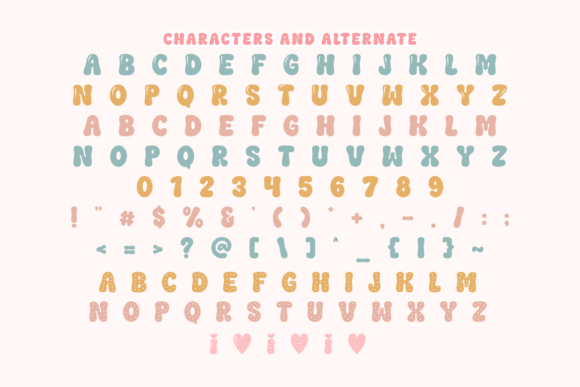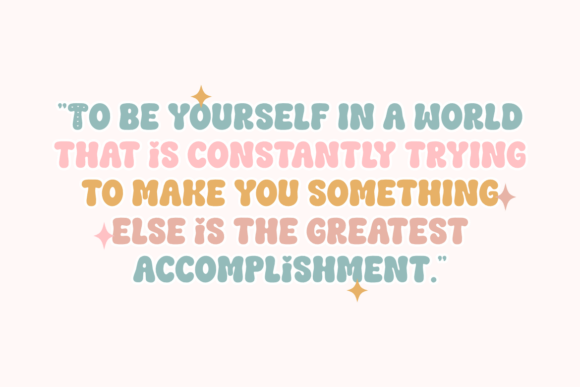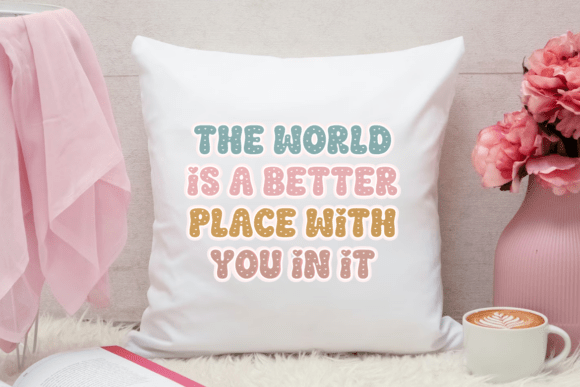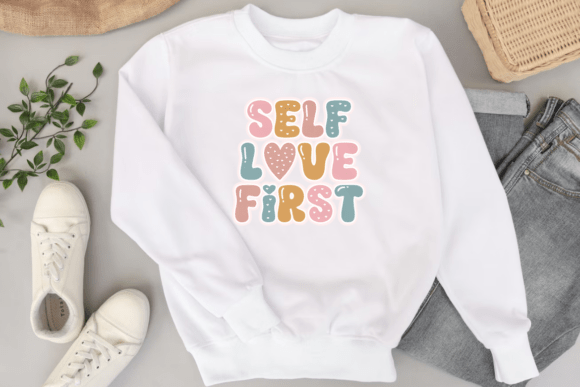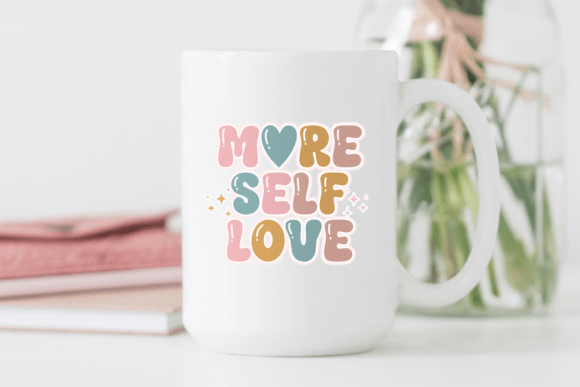
Cupid Vibes Font: The Ultimate Guide to Adding Playfulness to Your Designs
Are you looking for a font that can add a touch of playfulness and charm to your designs? Look no further than Cupid Vibes, a delightful bubble display font that is perfect for creating eye-catching headlines, posters, social media graphics, and branding. In this article, we’ll dive into the world of Cupid Vibes and explore its features, benefits, and uses.
What is Cupid Vibes Font?
Cupid Vibes is a charming and cute bubble display font that exudes playfulness. Its soft curves and bold appearance make it perfect for creating designs that require a touch of whimsy and fun. This font is designed to bring your ideas to life, and its versatility makes it suitable for a wide range of design projects.
Key Features of Cupid Vibes Font
- Soft Curves: Cupid Vibes features soft curves that give it a friendly and approachable feel.
- Bold Appearance: The font has a bold appearance that makes it perfect for creating eye-catching headlines and titles.
- Playful: Cupid Vibes exudes playfulness, making it perfect for designs that require a touch of fun and whimsy.
- Versatile: This font is versatile and can be used for a wide range of design projects, from posters and social media graphics to branding and packaging.
Benefits of Using Cupid Vibes Font
There are many benefits to using Cupid Vibes in your designs. Here are a few:
- Adds a Touch of Whimsy: Cupid Vibes adds a touch of whimsy and fun to your designs, making them more engaging and eye-catching.
- Perfect for Branding: The font’s playful and charming appearance makes it perfect for branding projects that require a friendly and approachable feel.
- Increases Readability: Cupid Vibes is a bold and clear font that increases readability, making it perfect for headlines and titles.
Uses of Cupid Vibes Font
Cupid Vibes is a versatile font that can be used for a wide range of design projects. Here are a few ideas:
- Posters: Use Cupid Vibes to create eye-catching posters for events, promotions, and products.
- Social Media Graphics: The font is perfect for creating social media graphics that require a touch of fun and playfulness.
- Branding: Cupid Vibes is perfect for branding projects that require a friendly and approachable feel.
- Packaging: Use the font to create eye-catching packaging that stands out on store shelves.
Tips for Using Cupid Vibes Font
Here are a few tips for using Cupid Vibes in your designs:
- Use it for Headlines: Cupid Vibes is perfect for headlines and titles, so use it to create eye-catching text.
- Experiment with Colors: The font looks great in a variety of colors, so experiment with different colors to find the one that works best for your design.
- Pair it with Other Fonts: Cupid Vibes can be paired with other fonts to create a unique and interesting design.
Cupid Vibes is a charming and cute bubble display font that is perfect for adding a touch of playfulness to your designs. Its soft curves and bold appearance make it perfect for creating eye-catching headlines, posters, social media graphics, and branding. With its versatility and ease of use, Cupid Vibes is a great addition to any designer’s toolkit. So why not give it a try and bring your ideas to life with Cupid Vibes?